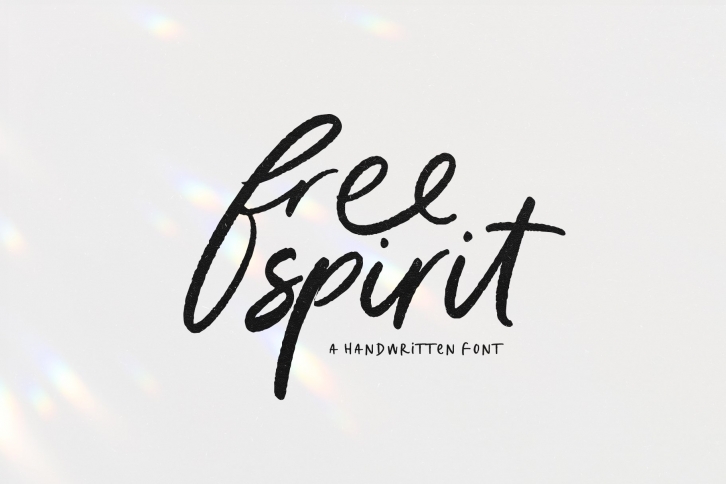
Free Spirit is a beautiful font that was designed by KA Designs. It's a great choice for designers and creatives who need such a font. It was released on September 3, 2020 and the file size is 2.75 MB. Free Spirit may give a more youthful, expressive and casual look to your project. It is a very beautiful, refined, elegant, and high-quality font.